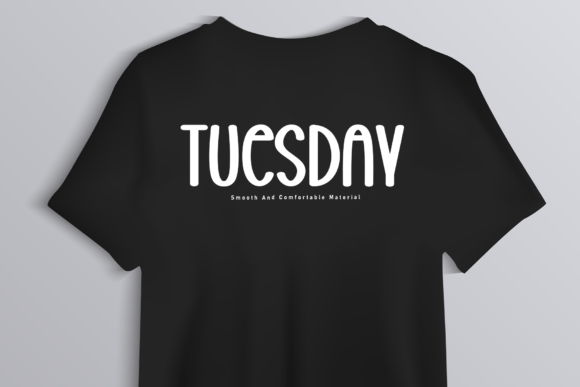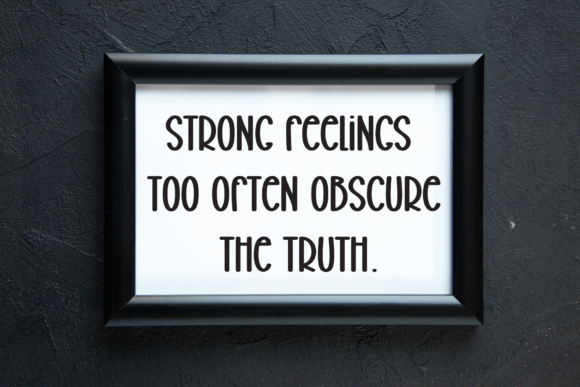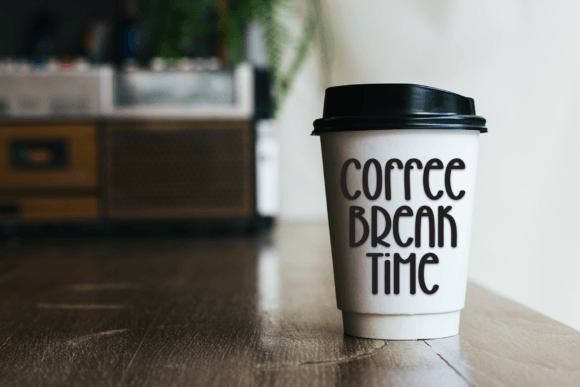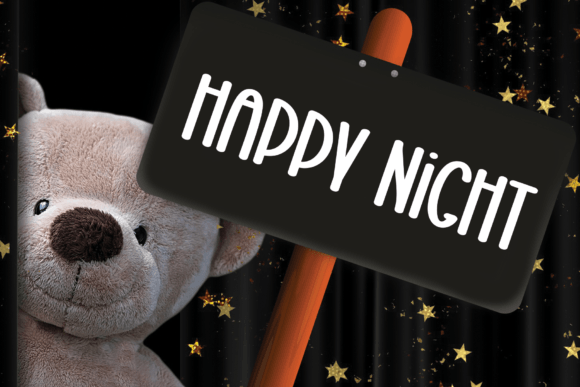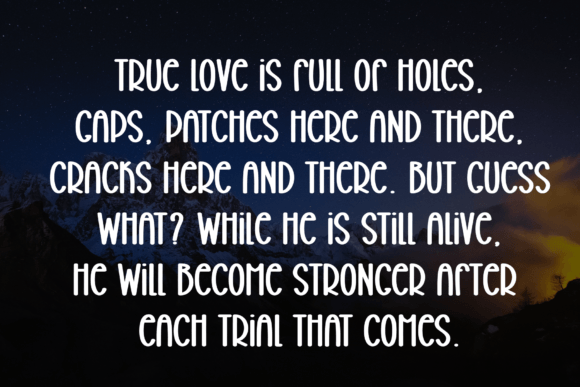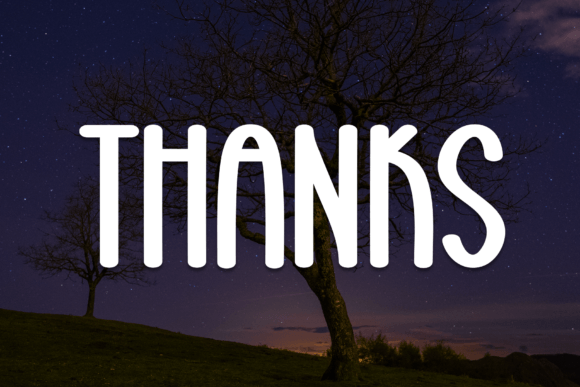
When the Muses Strike at Midnight
Have you ever found yourself wide awake at 3 AM, bursting with creative ideas and a desperate need to bring them to life? It’s a magical moment, full of possibility and promise. And what better way to capture that essence than with the perfect font?
Enter Creative Midnight Font, a sweet and friendly handwritten font that’s designed to bring a touch of whimsy and charm to your designs. Its natural and unique style makes it incredibly fitting to a wide range of projects, from invitations and social media graphics to branding and editorial content. Whether you’re a seasoned designer or just starting out, Creative Midnight Font is the perfect tool to help you unleash your creativity and bring your ideas to life.
With its versatility and charm, Creative Midnight Font is a valuable addition to any designer’s toolkit. So why not give it a try tonight, and see where the magic of the midnight hour takes you?
Creative Midnight Font Key Features
- Font Family: Creative Midnight
- Unique Characteristics:
- Unique blend of modern and vintage elements
- Specialized for use in creative, artistic, and design projects
Review: Creative Midnight Font
I recently had the chance to work with the Creative Midnight Font, and I must say it’s a unique addition to any design project. ✨ One of the things I appreciate about this font is its versatility – it works well in both bold and subtle applications. The combination of modern and elegant elements makes it perfect for a wide range of designs, from digital interfaces to print materials.
However, there are a few limitations to consider: ⚠️ The font can be difficult to read at smaller sizes, and some of the letters may blend together in certain contexts. Additionally, the font’s complexity may make it challenging to pair with other fonts without creating visual conflicts.
Overall, I’m impressed with the Creative Midnight Font’s ability to add a touch of sophistication to designs. While it may not be the best choice for every project, it’s certainly worth considering when you want to create a unique and memorable visual identity.
- Unique blend of modern and elegant elements
- Versatile and suitable for various design applications
- May be difficult to read at smaller sizes
- Can be challenging to pair with other fonts
The Creative Midnight Font is ideal for:
– Creating eye-catching titles and headings
– Designing unique social media graphics and posts
– Adding a touch of elegance to wedding invitations and stationery
– Enhancing the visual appeal of blog posts and articles
Tips for Getting the Most Out of Creative Midnight Font
Experiment with different font sizes, styles, and colors to achieve the desired effect.
Use the font in combination with other creative elements, such as graphics and textures, to add depth and interest.
Consider using the font in a bold or italic style to add emphasis and create visual hierarchy.